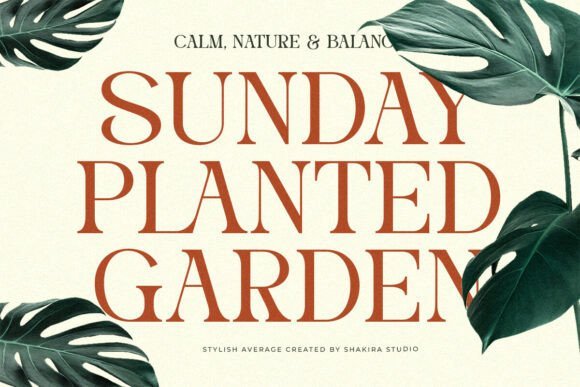
Stylish Average Font
Shakira Studio
Stylish Average Font is a modern elegant serif typeface created for stylish branding and refined editorial design. Its smooth curves and balanced contrast create a sophisticated typographic tone suitable for luxury logos and premium identity.